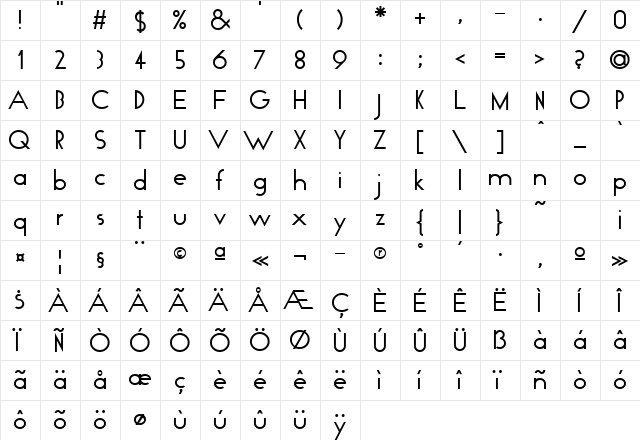
Ticker Tape Regular
Design Context for Ticker Tape Typeface
Ticker Tape offers clean, dependable letterforms without strong stylistic allegiance, making it a practical choice for designers who need flexibility.
Pro Tip: Use Ticker Tape in both headline and body roles to test its range before committing to a single application.